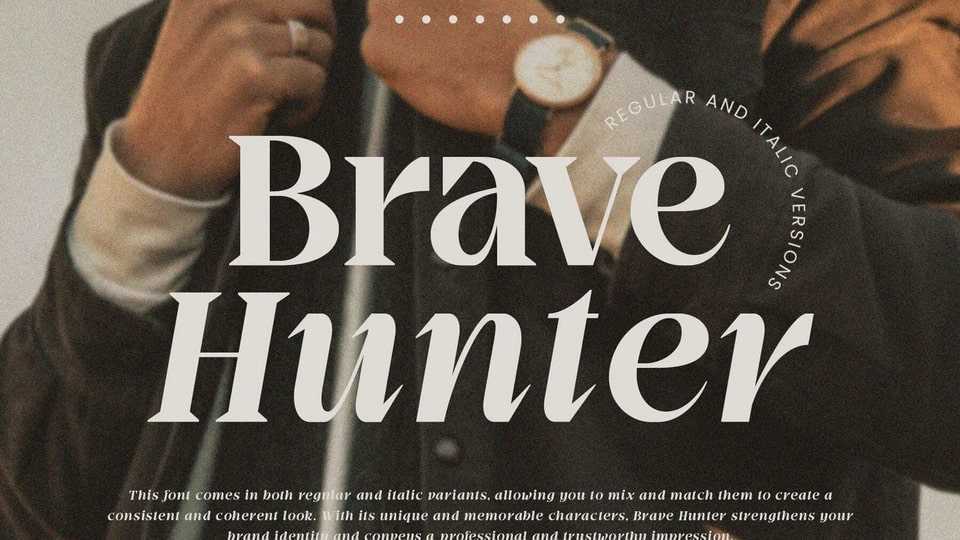
Download Brave Hunter font, a meticulously designed modern serif typeface that aims to elevate the professional and luxurious look of your design projects. Its clean and elegant style makes it a perfect fit for headlines, logos, and branding.